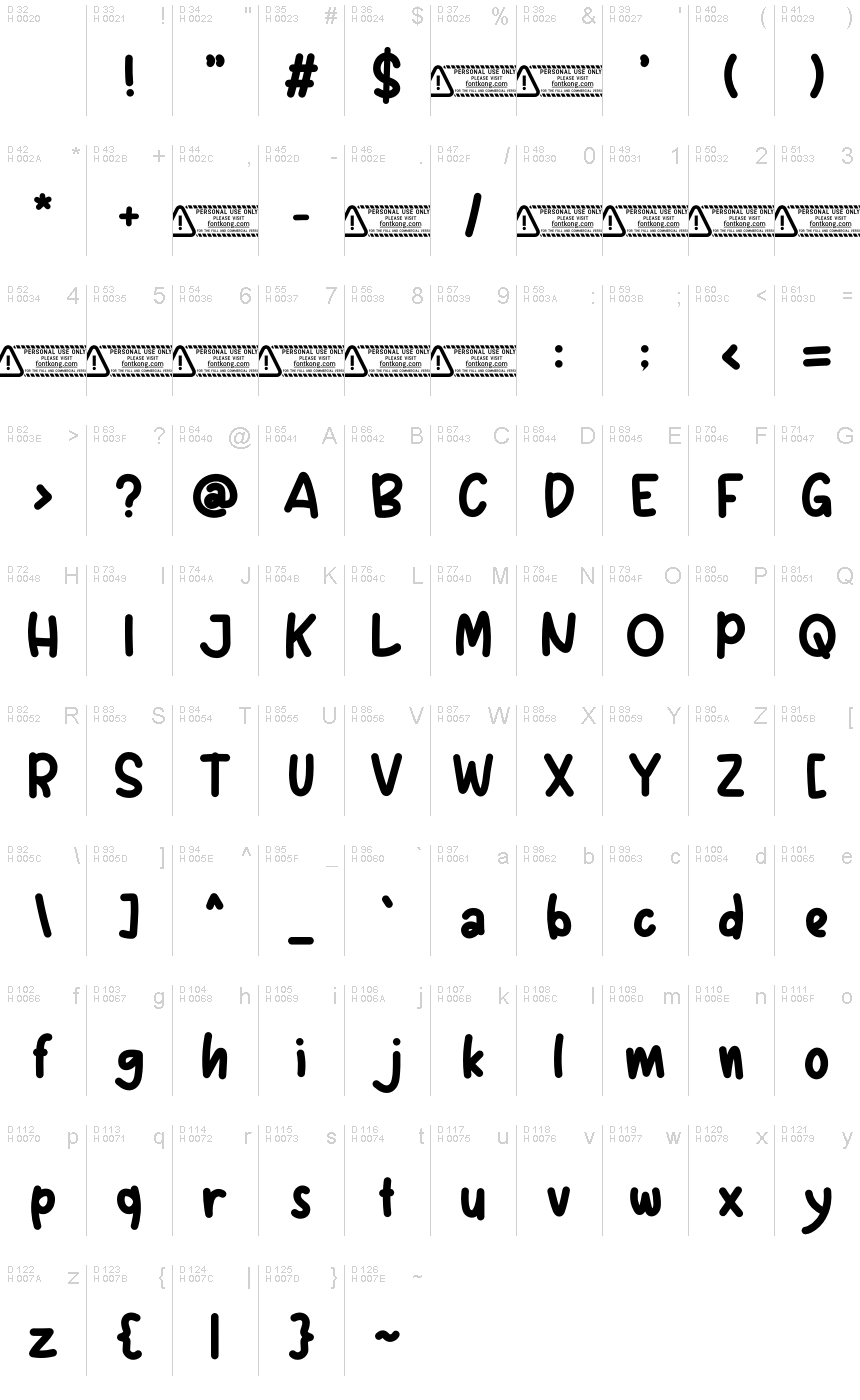
Happy Meal font, crafted by Kong Font, exudes a playful charm that evokes a sense of nostalgia and whimsy. This display font features buoyant curves and bouncy letterforms that instantly convey a light-hearted tone, perfect for capturing attention in vibrant contexts. Its cartoon style creates an engaging atmosphere, making it ideal for children’s themes or festive designs.
The boldness of the characters stands out beautifully, ensuring readability while maintaining a joyful spirit. Its versatility makes the Happy Meal font suitable for party invitations, menus, or any project seeking to deliver a cheerful message. This font not only brings words to life but also transforms ordinary text into an exciting visual experience that delights the viewer at every glance.